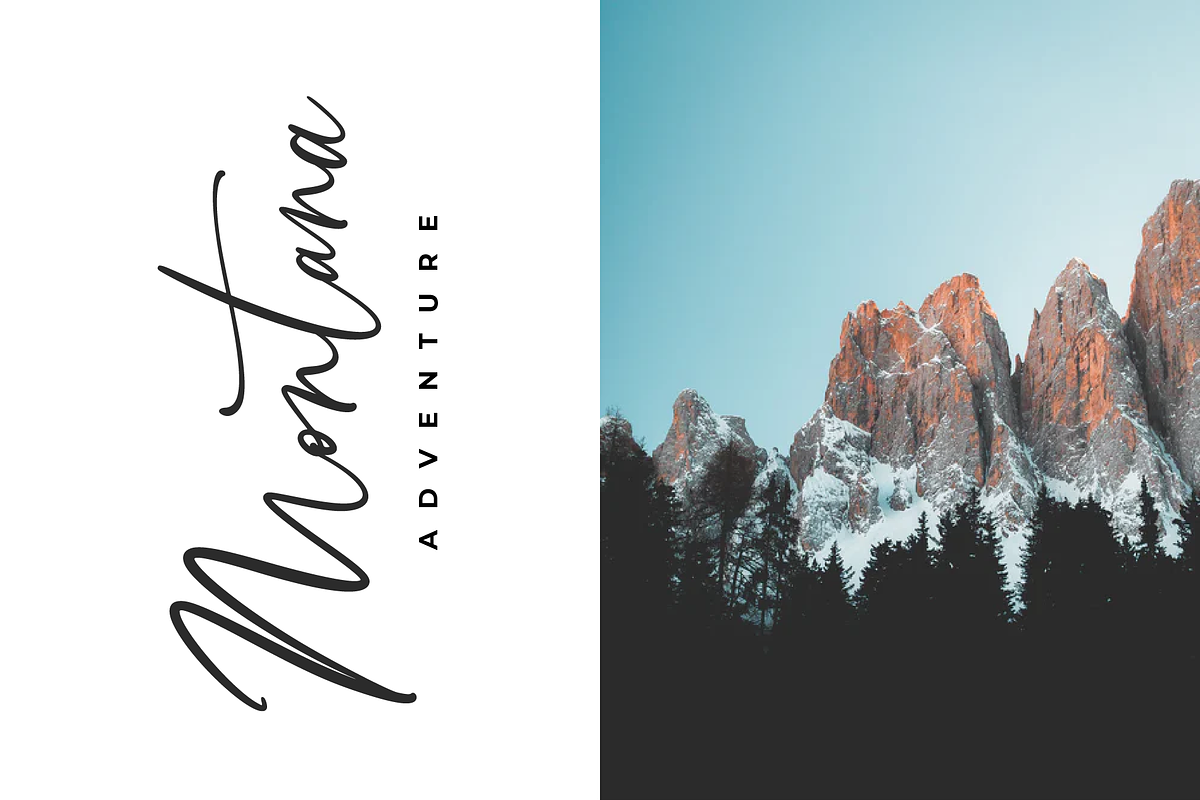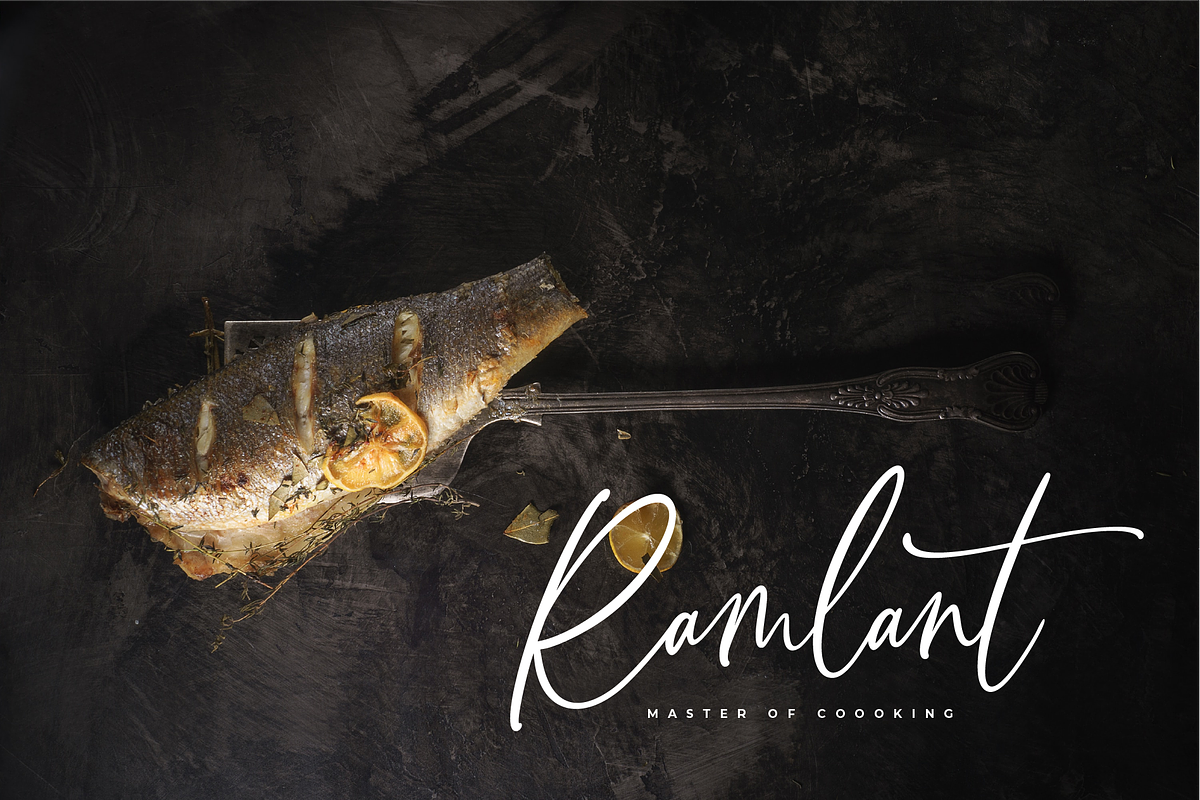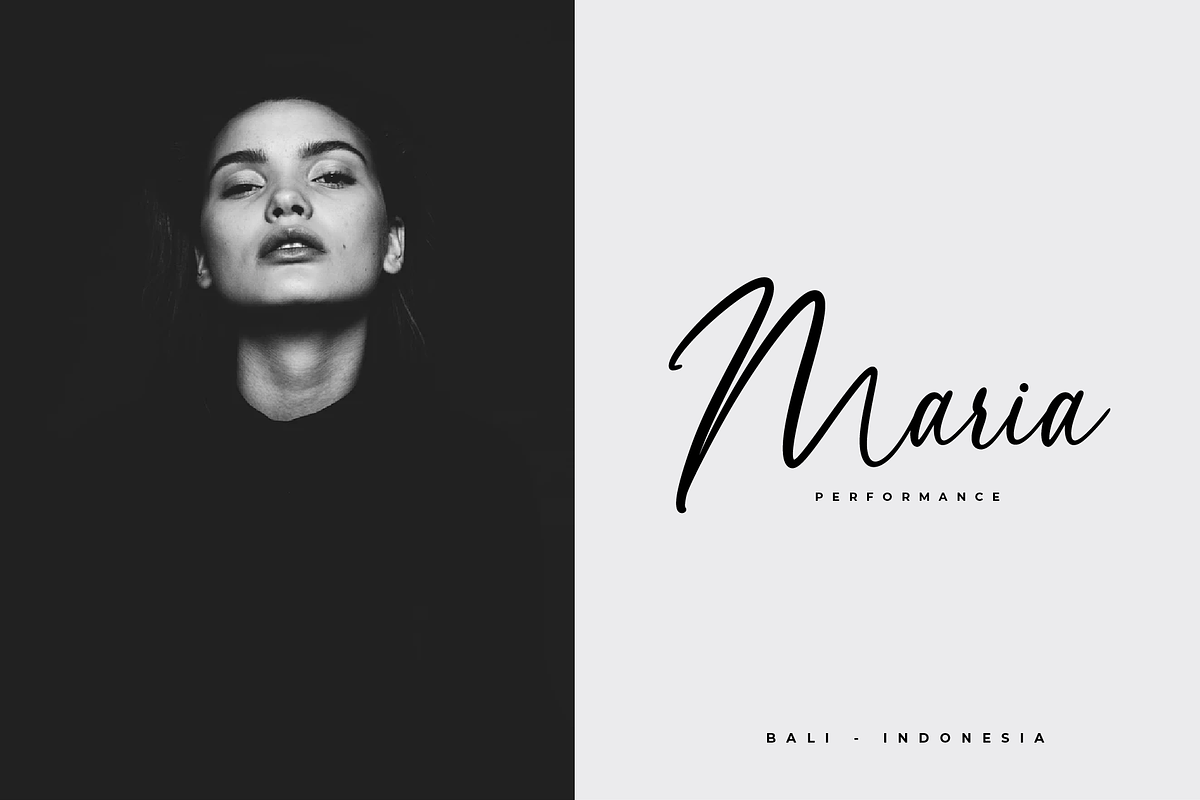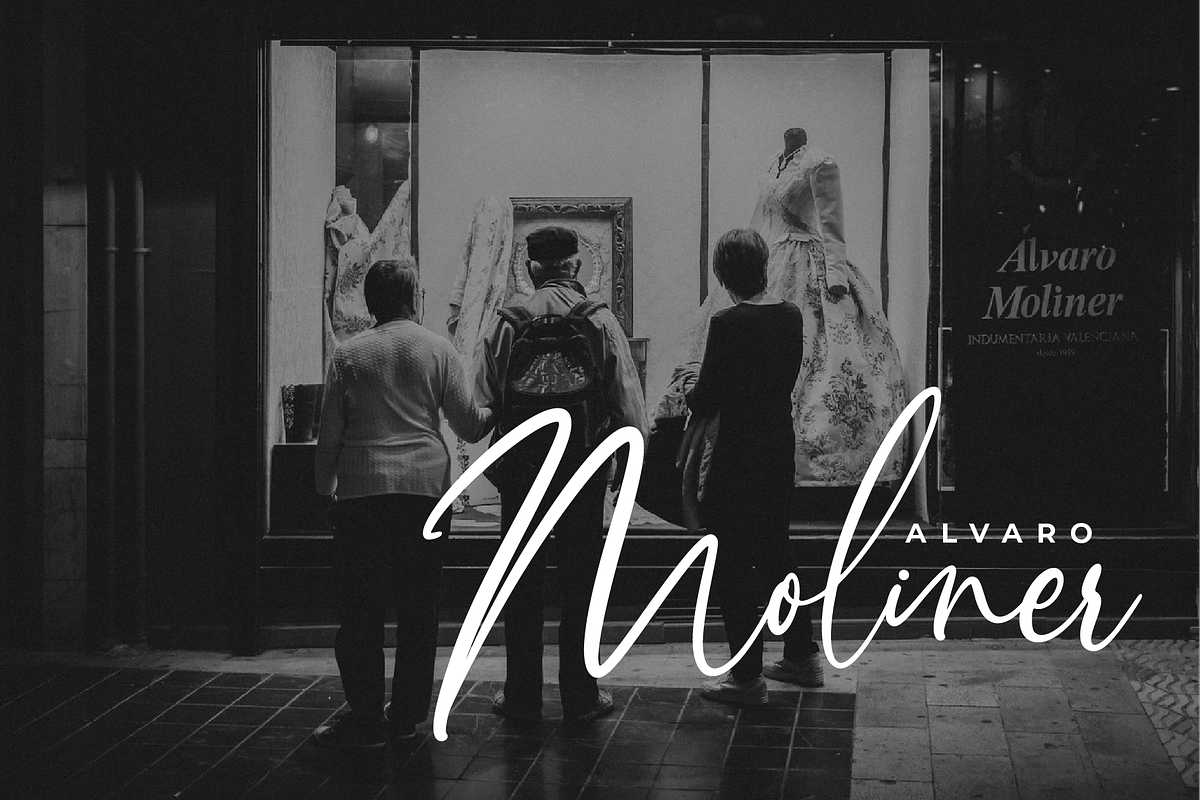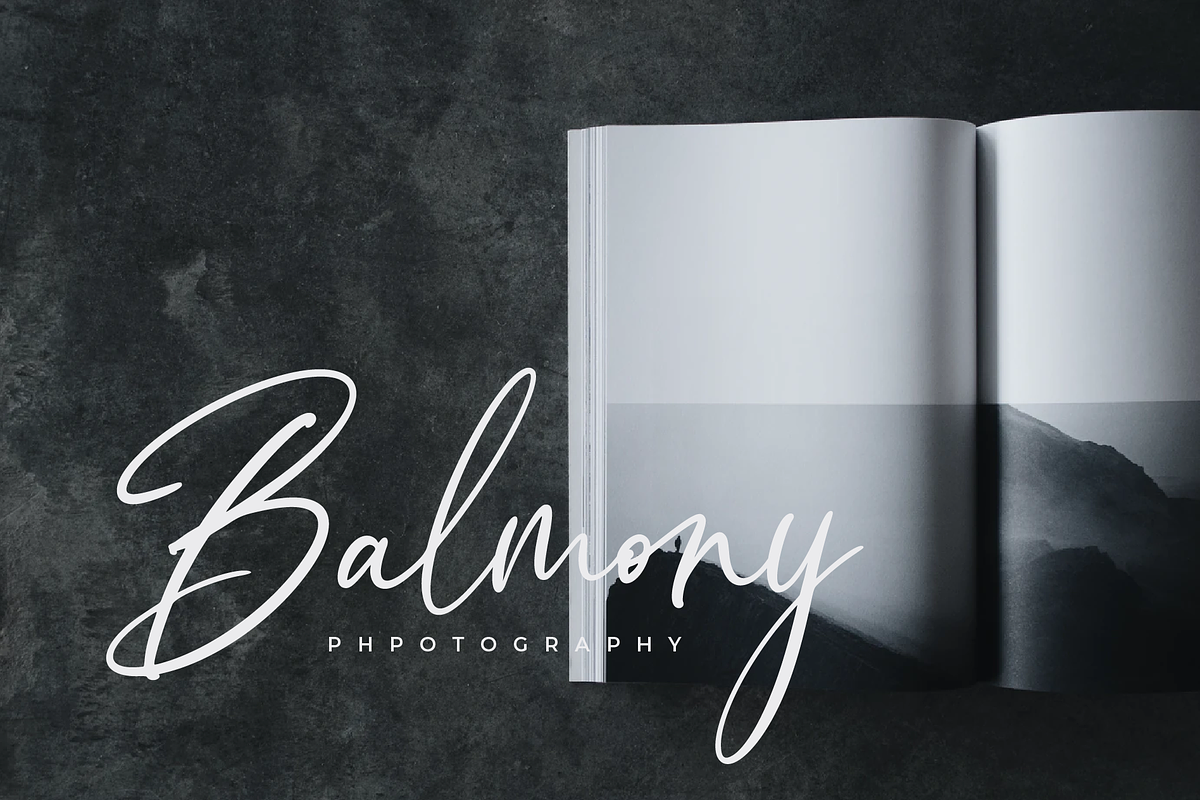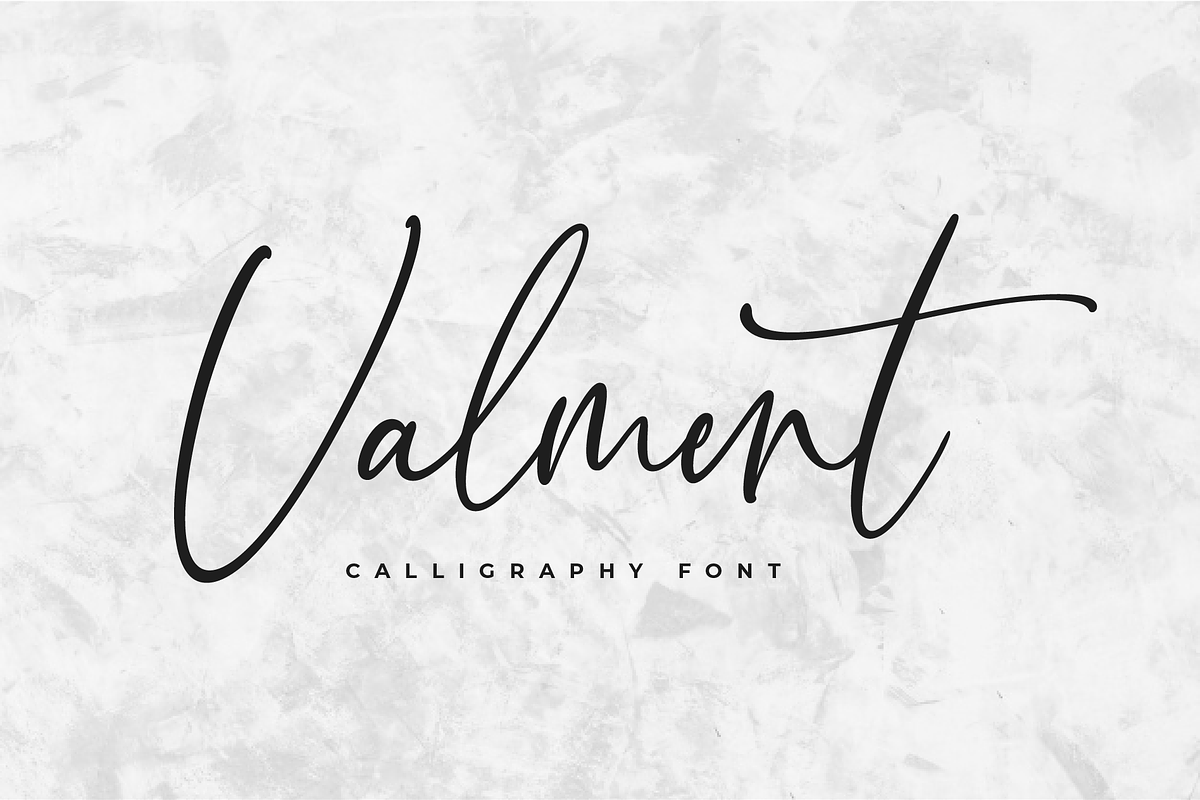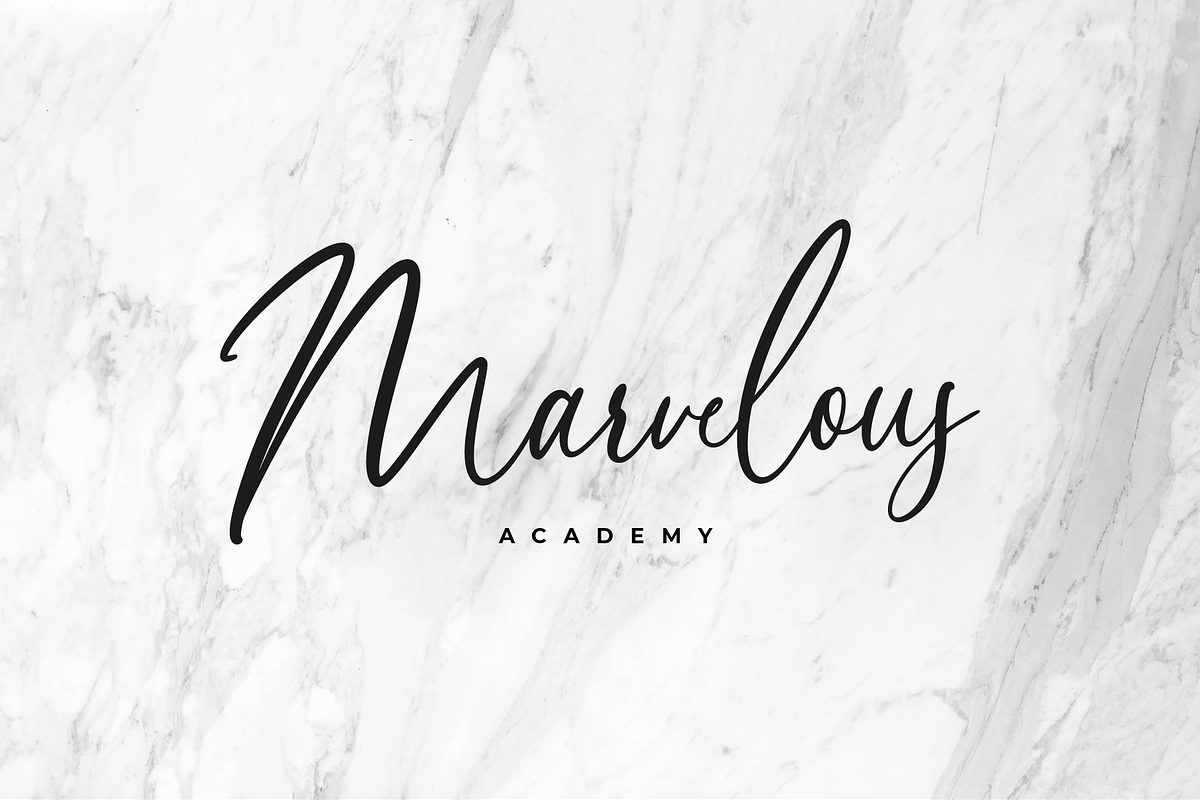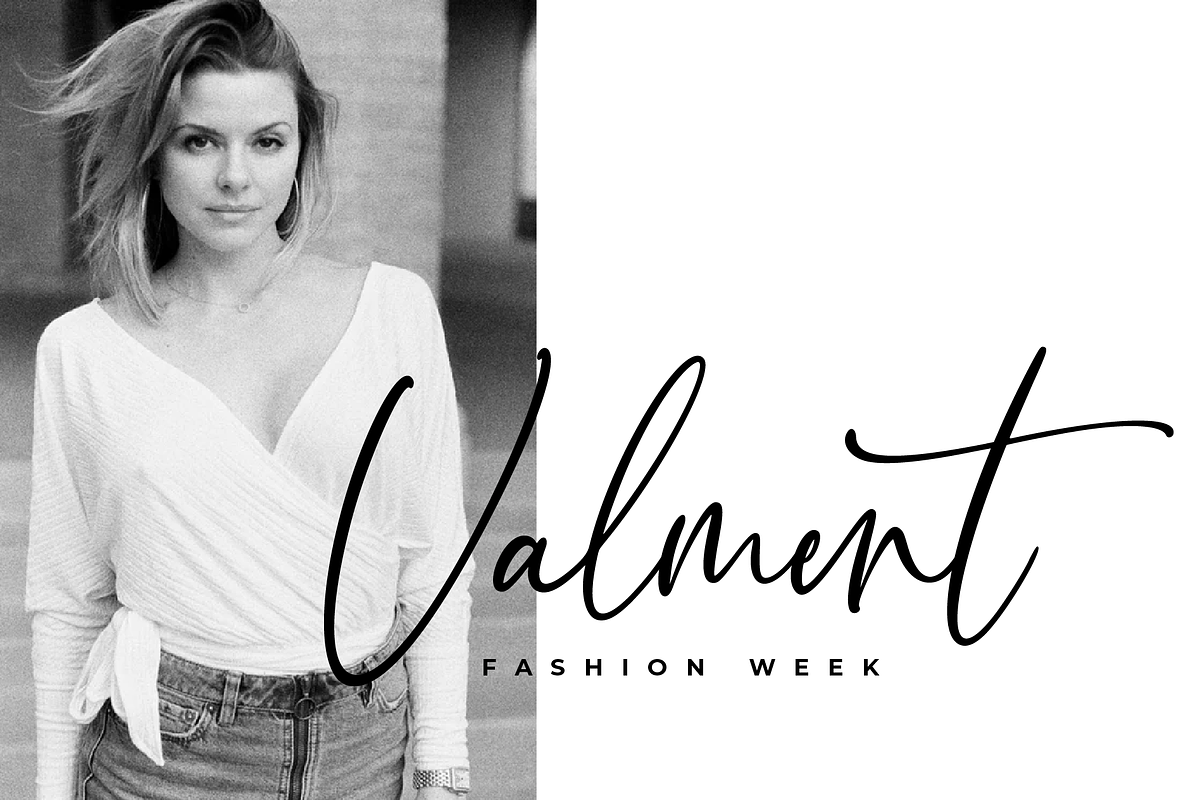
Valment Calligraphy Font
let me show you my newest font called valment. this is modern calligraphy font that perfect for any use,.this font come with 72 beautiful ligature and very perfect for your design project and many other. let's make world more special with valment.
71 Beautiful ligature
Why Valment Calligraphy Font is worth a look
Valment Calligraphy Font by Pen Culture fits naturally into Branding, posters, packaging, typography.